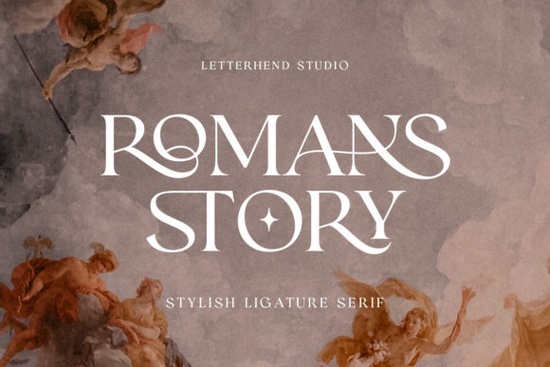
Looking for a serif font that feels elegant without being heavy? Romans Story is a thin, delicate serif typeface designed for projects where softness and refinement matter. Whether you're designing wedding invitations, thank you cards, or a brand logo, this font brings a graceful, handcrafted feel that pairs beautifully with minimal and romantic design styles.
What Makes Romans Story Different from Other Serif Fonts?
Most serif fonts lean either classic or bold. Romans Story takes a lighter approach, using fine, thin strokes that give text a airy and sophisticated look. It doesn't shout for attention it whispers. That's what makes it work so well for designs where you want elegance without heaviness.
Think of it this way: if a typical serif font is a suit and tie, Romans Story is a linen shirt at a garden party. It still looks polished, but it feels relaxed and approachable.
Which Projects Work Best with This Font?
This typeface was built for designs that need a personal, customized touch. Here are some specific uses where it really shines:
- Wedding invitations The thin letterforms feel romantic and classic without looking outdated.
- Thank you cards Soft and warm, perfect for expressing gratitude with style.
- Greeting cards Works for birthdays, holidays, and seasonal designs.
- Quotes and typography art Pairs well with decorative scripts and handwritten fonts.
- Logos and business cards Ideal for boutique brands, florists, photographers, and lifestyle businesses.
- Print-on-demand products Mugs, tote bags, and wall art all benefit from its clean readability.
If you sell on Etsy, Redbubble, or Amazon Merch, a font like this can help your products stand out in categories where most sellers rely on the same overused typefaces.
How Does It Pair with Other Fonts?
A thin serif like Romans Story works best when you pair it with a contrasting typeface. Here are a few combinations that look great:
- Romans Story + a bold sans-serif Use the serif for headings and a clean sans-serif for body text.
- Romans Story + a calligraphy script Great for wedding suites and feminine branding.
- Romans Story + a modern serif For a layered editorial look, try pairing it with something like a versatile serif typeface that has more weight.
The key is contrast. Two thin fonts next to each other can feel fragile, so balance the delicacy of Romans Story with something a bit sturdier.
Tips for Getting the Most Out of Thin Serif Fonts
Thin fonts look beautiful, but they come with a few practical considerations:
- Avoid very small sizes Thin strokes can disappear at small sizes, especially in print. Stick to 14pt or larger for body text.
- Use high contrast backgrounds Light fonts need strong contrast to stay readable. Dark text on a light background works best.
- Check print quality If you're using this for physical products, do a test print first. Some printers handle fine lines better than others.
- Don't overuse it A whole paragraph in a thin serif can feel hard to read. Use it for headings, short quotes, or accent text.
Who Should Use This Font?
Romans Story is a solid pick for anyone working on designs that need to feel elegant, soft, and intentional. Here's a quick list of who benefits most:
- Wedding stationery designers
- Greeting card creators
- Print-on-demand sellers
- Small business owners building a brand identity
- Crafters who design with cutting machines like Cricut or Silhouette
- Anyone who wants a serif font that doesn't feel heavy or corporate
Quick Checklist Before You Buy
Before adding Romans Story to your font library, make sure it fits your needs:
- ✅ Do you need a thin, delicate serif for elegant designs?
- ✅ Will you use it at a readable size (14pt+ for body text)?
- ✅ Do you have a secondary font to pair it with for contrast?
If you answered yes to most of these, Romans Story is worth adding to your toolkit. It fills a specific niche refined, thin serif typography and does it well. Combine it with the right pairing font and a thoughtful layout, and your designs will feel polished and professional without looking overdone.